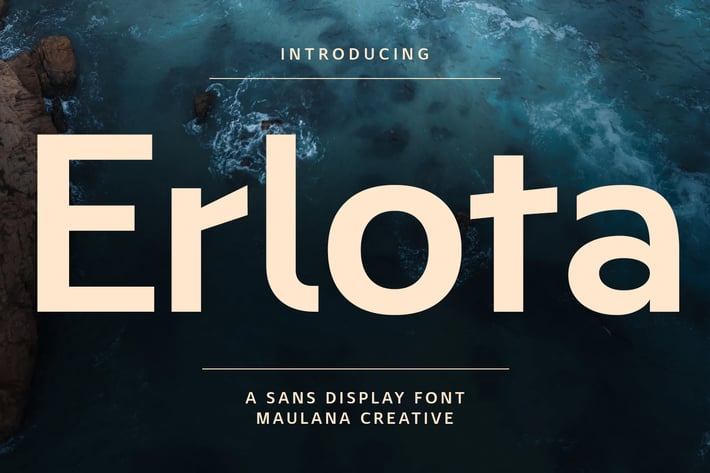
Erlota Sans Display Font
Erlota is a Quirky modern fun sans serif font. With regular consist stroke, fun character with a bit of ligatures and alternates. To give you an extra creative work. Erlota font support multilingual more than 100+ language. This font is good for logo design, Social media, Movie Titles, Books Titles, a short text even a long text letter and good for your secondary text font with script or serif. Make a stunning work with Erlota font.